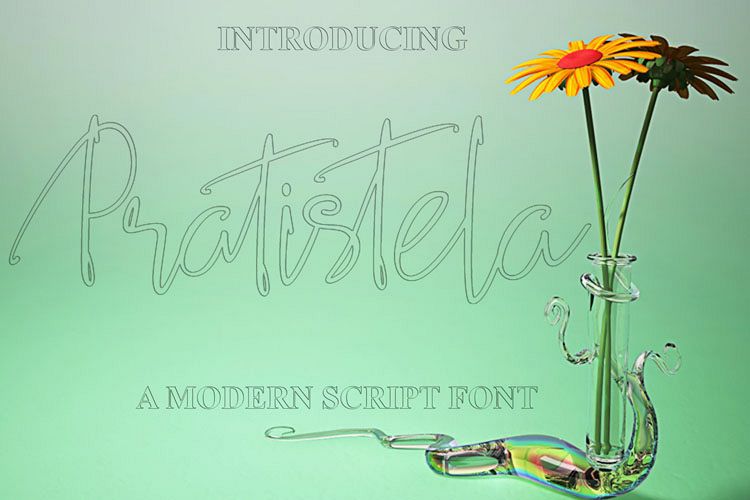
Pratistela
The Pratistela is a modern script font. It has an elegant handwritten feel which makes it perfect for adding a personal touch to your designs.